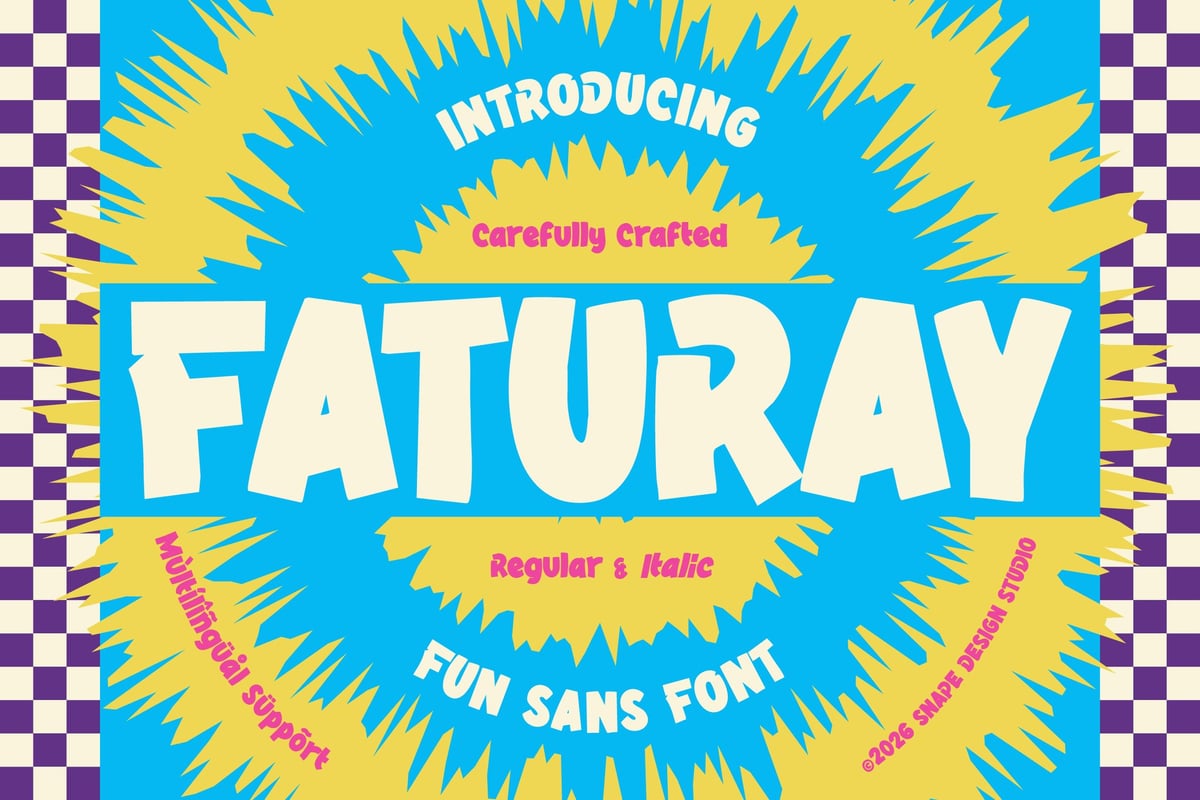
Faturay - Fun Sans Font
FATURAY delivers bold, playful typography that commands attention with chunky letterforms and retro sunshine energy. This dynamic display font features thick, rounded letterforms with organic curves and an energetic silhouette that brings instant personality to any creative project. Each character is carefully crafted with slightly irregular shapes that feel human, lively, and unapologetically bold while maintaining excellent readability. FATURAY's chunky structure and playful rhythm make it per...